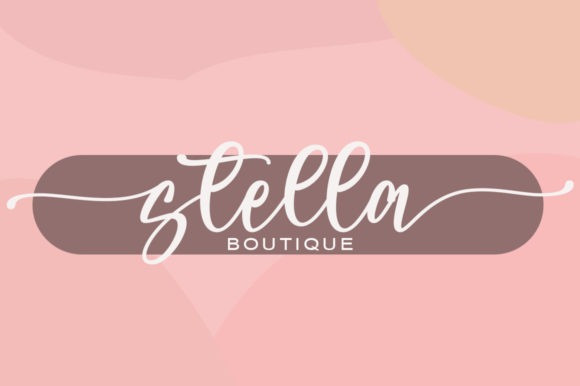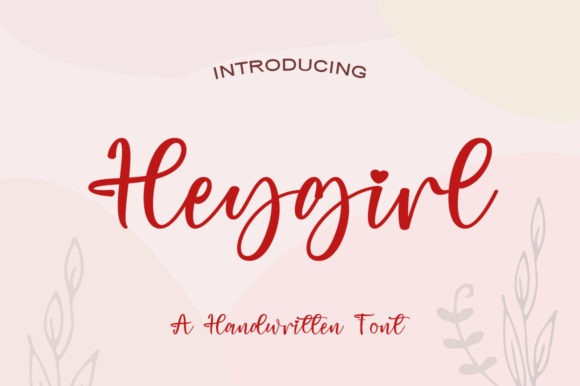
Heygirl Font
Hey Girl Script Font feels equally charming and elegant. It looks stunning on wedding invitations, thank you cards, quotes, greeting cards, logos, business cards and every other design which needs a handwritten touch. This font is PUA encoded which means you can access all of the glyphs and swashes with ease!